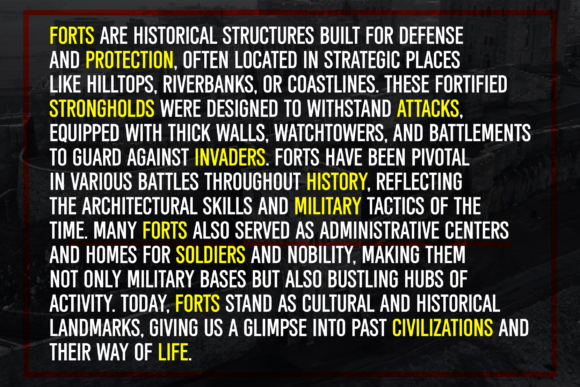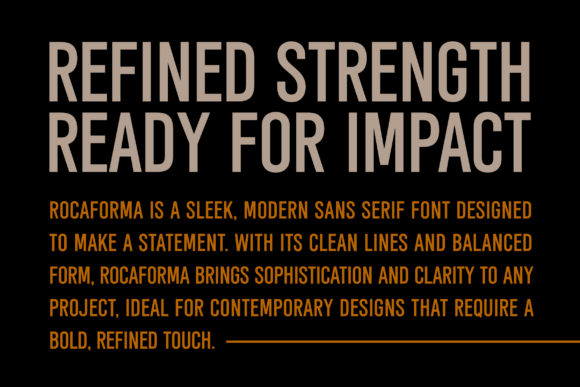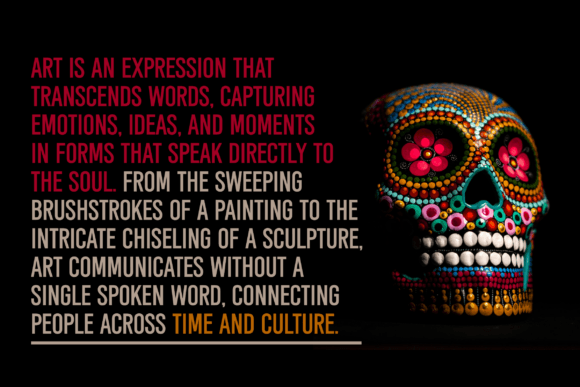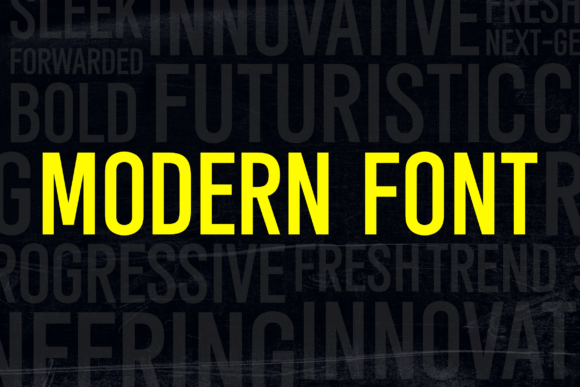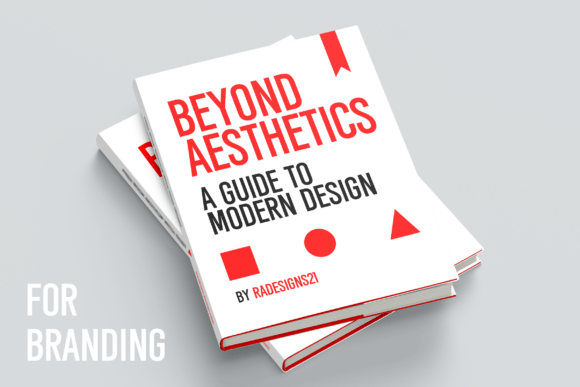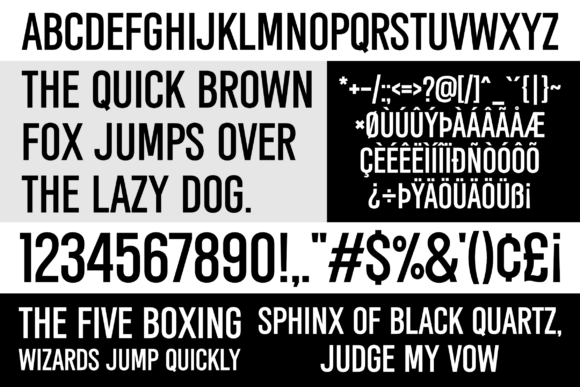
Introduction to Rocaforma Font
Imagine you’re working on a high-stakes creative project, and you need the perfect font to convey your message with authority and elegance. The right font can make all the difference between a professional-looking design and one that falls flat. For many designers, finding that perfect font can be a challenge, but one solution stands out: the Rocaforma Font.
As a highly professional and modern sans serif font, Rocaforma Font is designed to be versatile and sophisticated, making it perfect for a wide range of projects, from corporate branding to editorial design. With its clean, refined lines, it offers both clarity and elegance, and is sure to make a lasting impression on your audience.
Key Features of Rocaforma Font
- Unique, modern design with a transparent background for seamless integration
- Perfect for use in digital designs, such as logos, graphics, and web applications
- Includes a comprehensive character set with international language support
Honest Review: Rocaforma Font
I recently had the chance to work with the Rocaforma Font, and I must say it’s been a game-changer for my design projects. This font has everything I need to bring my creative vision to life.
- High-quality design: The Rocaforma Font boasts a beautiful, unique design that’s perfect for adding a touch of sophistication to any project.
- Limited language support: While the font is great for English projects, it may not be the best choice for designers working on projects that require multiple languages.
- Not suitable for all design styles: While the Rocaforma Font is perfect for some projects, it may not be the best fit for more minimalist or modern designs.
Overall, I’m really impressed with the Rocaforma Font. It’s a high-quality design resource that’s perfect for a wide range of creative projects. With its transparent background and beautiful design, it’s a must-have for any designer looking to elevate their work.
The Rocaforma Font is ideal for creative projects that require a high-quality, elegant, and modern look. Some common use cases include:
- Event branding and marketing materials
- Photography and graphic design projects